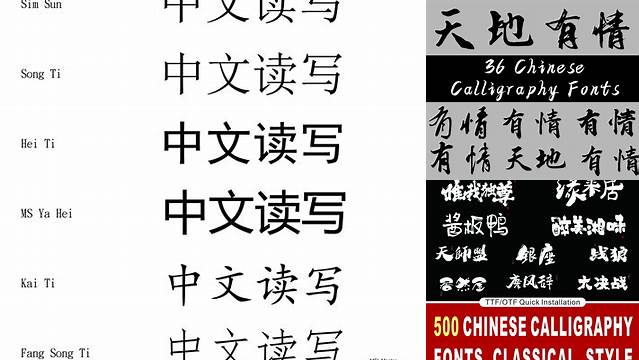
Use Chinese Calligraphy Fonts In Microsoft Word: A How-To Guide
Hey guys! Ever wanted to add a touch of elegance and tradition to your documents? Well, learning how to use Chinese calligraphy fonts in Microsoft Word is your ticket! This guide will walk you through everything you need to know, from finding the right fonts to actually using them in your projects. Whether you’re creating a beautiful invitation, a cultural presentation, or just want to experiment with different writing styles, we’ve got you covered. Let’s dive in and explore the art of Chinese calligraphy in the digital world! In this comprehensive guide, we'll explore the fascinating world of Chinese calligraphy fonts within Microsoft Word. You'll learn how to access, install, and effectively utilize these fonts to create stunning documents that reflect the beauty and artistry of Chinese writing. We'll cover a variety of topics, from understanding the different styles of calligraphy to troubleshooting common issues. So, grab your digital brush and let's embark on this creative journey together!
1. Understanding Chinese Calligraphy Styles
Before we jump into the technical stuff, let’s talk about the art itself. Chinese calligraphy isn’t just about writing characters; it’s about creating art. There are several main styles, each with its own unique flavor. Knowing these styles will help you choose the right font for your project. For example, Kaishu (楷书), or regular script, is formal and precise, making it great for official documents. On the other hand, Xingshu (行书), or running script, is more fluid and expressive, perfect for personal letters or creative pieces. And then there’s Caoshu (草书), or cursive script, which is super artistic but can be a bit tricky to read if you’re not familiar with it. Understanding these styles is the first step in mastering Chinese calligraphy in Word. Each style carries its own historical significance and aesthetic appeal. Familiarizing yourself with these nuances will not only enhance your understanding but also enable you to make informed choices when selecting fonts for your projects. Consider the message you wish to convey and the overall tone of your document when choosing between the formality of Kaishu, the fluidity of Xingshu, and the artistic flair of Caoshu. This thoughtful approach will elevate your work from simple text to a captivating visual experience.
4. Using Chinese Calligraphy Fonts in Word
Alright, you’ve got your fonts installed, now what? Open up Microsoft Word and start typing! To use your new fonts, simply select the text you want to change and choose the calligraphy font from the font dropdown menu. If you don’t see it right away, try typing the font name in the search bar. One thing to keep in mind is that Chinese characters can be a bit more complex than English letters, so you might need to adjust the font size and spacing to get the look you want. Experiment with different sizes and line heights to find the perfect balance. And don’t be afraid to play around with different fonts and styles to see what works best for your project. This is where the fun begins! Mastering the art of typesetting Chinese calligraphy in Word requires a bit of practice and attention to detail. Pay close attention to the spacing between characters and lines, as this can significantly impact readability and aesthetic appeal. Use Word's character spacing and line spacing tools to fine-tune the appearance of your text. Consider the overall layout of your document and how the calligraphy elements integrate with other design elements. A well-balanced and harmonious composition will enhance the impact of your message and showcase your artistic skills. Don't hesitate to experiment with different arrangements until you achieve the desired effect.
5. Common Issues and Troubleshooting
Sometimes things don’t go as planned, and that’s okay. One common issue is that some fonts might not display correctly in Word. This can happen if the font file is corrupted or if Word is having trouble recognizing the font. A quick fix is to restart Word or even your computer. If that doesn’t work, try reinstalling the font. Another issue is that some fonts might not support all Chinese characters. If you find that a character is missing, try using a different font or look for a font that specifically supports the characters you need. Don’t get discouraged! A little troubleshooting can go a long way. If problems persist, consult online forums and communities for help. Sharing your experiences and seeking guidance from others can often lead to swift resolutions. In addition, keeping your software up to date and regularly maintaining your system can help prevent many common issues from arising in the first place. A proactive approach to troubleshooting ensures a smoother and more enjoyable creative process.
6. Adjusting Font Size and Spacing
Font size and spacing are crucial elements in making your Chinese calligraphy look its best. Too small, and the characters might be hard to read; too large, and they might look overwhelming. The same goes for spacing. Too little spacing, and the characters will run together; too much, and they’ll look disconnected. Experiment with different sizes and spacing options until you find the sweet spot. Word offers a variety of tools to adjust these settings, so take advantage of them. Remember, the goal is to create a visually pleasing and readable piece of text. Don't be afraid to zoom in and examine your work closely to ensure that the spacing and size are just right. Consider the context in which your calligraphy will be viewed and adjust the settings accordingly. For example, if your document will be printed, you may need to use a larger font size than if it will be viewed on a screen. Attention to detail is key to achieving professional-looking results.
7. Using Calligraphy Fonts for Titles and Headings
Chinese calligraphy fonts can add a touch of sophistication and elegance to your titles and headings. Imagine a presentation with beautifully calligraphed titles or a report with a striking heading that grabs attention. When using calligraphy fonts for titles, choose fonts that are bold and clear. Xingshu and Kaishu styles often work well for this purpose. Play around with font size and color to make your titles stand out. But remember, consistency is key. Stick to one or two calligraphy fonts throughout your document to maintain a cohesive look. The impact of calligraphy lies in its visual appeal, making it a natural choice for titles and headings. However, it’s important to use it judiciously to avoid overwhelming the reader. Consider the overall design of your document and how the calligraphy elements complement the other elements. In some cases, a subtle touch of calligraphy may be more effective than a bold and elaborate display. Think of calligraphy as a visual accent that enhances the message, rather than the main focus of attention. This thoughtful approach will ensure that your titles and headings are both visually appealing and functional.
8. Creating Invitations with Chinese Calligraphy
Want to create invitations that truly impress? Chinese calligraphy can add a unique and elegant touch. For invitations, Xingshu and Caoshu fonts can bring a sense of artistry and sophistication. Consider using these fonts for names, dates, and special messages. Pair them with a simple, clean body text font for readability. Experiment with different layouts and color schemes to create a design that reflects the tone of your event. Whether it’s a wedding, a birthday, or a corporate gala, calligraphy can make your invitations unforgettable. The artistry of Chinese calligraphy lends itself beautifully to the creation of elegant and memorable invitations. Consider the theme and style of your event when selecting a font and designing the layout. For formal occasions, a classic Kaishu font may be appropriate, while for more casual events, a flowing Xingshu or Caoshu font can add a touch of whimsy. Use high-quality paper and printing techniques to enhance the visual appeal of your invitations. Pay attention to the spacing and alignment of the text to ensure readability and visual harmony. With a little creativity and attention to detail, you can create invitations that are both beautiful and impactful.
9. Designing Posters with Calligraphy Fonts
Posters are all about making a statement, and calligraphy fonts can help you do just that. Use bold and eye-catching calligraphy fonts for your poster’s main message. Think about the overall theme and choose a font that matches. For a traditional look, Kaishu is a great choice; for a more modern vibe, Xingshu or a stylized calligraphy font might be better. Play with colors and backgrounds to make your poster pop. Just make sure the text is still easy to read. A well-designed poster with calligraphy can be a true work of art. Posters are a powerful medium for visual communication, and calligraphy fonts can add a unique and impactful element to your designs. Consider the target audience and the message you wish to convey when selecting a font and creating the layout. Use contrasting colors and bold typography to capture attention and make your message stand out. Experiment with different arrangements of text and images to create a visually dynamic composition. Don't be afraid to break the rules and try something unconventional. The goal is to create a poster that is both visually appealing and effective in communicating your message.
10. Using Chinese Calligraphy in Presentations
Adding Chinese calligraphy to your presentations can make them more engaging and memorable. Use calligraphy fonts for your title slides, section headings, and key messages. This can add a touch of elegance and cultural flair to your slides. Just make sure your audience can read the text easily. Choose fonts that are clear and legible, and use font sizes that are large enough for everyone to see. A well-placed calligraphy element can elevate your presentation and leave a lasting impression. Presentations are an opportunity to engage your audience and convey information in a visually compelling way. Incorporating Chinese calligraphy can add a touch of sophistication and cultural richness to your slides. Use it sparingly and strategically to highlight key points and enhance the overall aesthetic appeal of your presentation. Consider using calligraphy for your title slide, section headings, and concluding remarks. This will create a visual framework that guides your audience through your presentation and reinforces your message. Be sure to use clear and legible fonts, and adjust the size and spacing as needed to ensure readability.
11. Calligraphy Fonts for Business Documents
For a professional yet artistic touch, consider using Chinese calligraphy fonts in your business documents. A subtle use of calligraphy can make your reports, proposals, and memos stand out. However, it’s important to maintain a balance between aesthetics and professionalism. Use formal styles like Kaishu for important headings or titles, and ensure the font is legible and not distracting. A tasteful incorporation of calligraphy can enhance your corporate image and showcase attention to detail. Business documents require a balance between professionalism and visual appeal. Chinese calligraphy can be a subtle yet effective way to add a touch of elegance and sophistication to your reports, proposals, and letters. Use it sparingly and thoughtfully, focusing on key elements such as headings, titles, and logos. Choose fonts that are clear and legible, and avoid overly stylized or ornate scripts that may be difficult to read. Consider the overall tone and style of your document and select a font that complements the message you wish to convey. A well-placed calligraphy element can elevate your business communication and leave a lasting impression.
12. Calligraphy Fonts in Resumes and Cover Letters
In a competitive job market, a unique resume can make you stand out. Using Chinese calligraphy fonts sparingly can add a distinctive flair to your resume and cover letter. Consider using it for your name or section headings to grab the recruiter's attention. However, legibility is paramount. Choose a clear, formal style and ensure the font size is appropriate. A subtle hint of calligraphy can showcase your creativity and attention to detail. Resumes and cover letters are your first opportunity to make a strong impression on potential employers. While content is paramount, the visual presentation of your application can also play a significant role in capturing attention. Using Chinese calligraphy fonts judiciously can add a touch of uniqueness and sophistication to your resume and cover letter. However, it's crucial to prioritize clarity and legibility. Choose a font that is easy to read and avoid using it excessively. Consider using calligraphy for your name, section headings, or a brief personal statement. A subtle hint of calligraphy can demonstrate your creativity and attention to detail while maintaining a professional tone.
13. Chinese Calligraphy for Greeting Cards
Personalize your greeting cards with the beauty of Chinese calligraphy. Whether it's for a birthday, holiday, or special occasion, calligraphy can add a heartfelt touch. Use elegant fonts like Xingshu for a personal message or Kaishu for a more formal greeting. Pair it with a beautiful image or design to create a memorable card. Calligraphy transforms a simple greeting into a work of art. Greeting cards are a wonderful way to express your sentiments and connect with loved ones. Chinese calligraphy can elevate your greeting cards from ordinary to extraordinary, adding a touch of elegance and personalization. Consider the occasion and your relationship with the recipient when selecting a font and crafting your message. Use Xingshu or Caoshu for a warm and heartfelt message, or opt for Kaishu for a more formal greeting. Incorporate traditional Chinese motifs or images to enhance the cultural authenticity of your card. With a little creativity and effort, you can create greeting cards that are both beautiful and meaningful.
14. Creating Art with Calligraphy Fonts
Unleash your inner artist by creating digital art with Chinese calligraphy fonts. Experiment with different fonts, sizes, and colors to produce unique designs. Use calligraphy for quotes, poems, or personal expressions. You can even combine calligraphy with other graphic elements to create stunning visuals. Let your imagination run wild and create art that reflects your style and personality. Calligraphy is not just a writing system; it's an art form in itself. Digital tools have made it easier than ever to explore the artistic potential of Chinese calligraphy fonts. Use your creativity and imagination to combine different fonts, colors, and sizes to create unique and captivating designs. Incorporate calligraphy into your digital artwork, posters, or social media graphics. Experiment with layering, transparency, and special effects to add depth and dimension to your creations. Let your passion for calligraphy shine through your artwork and inspire others with its beauty.
15. Mixing Chinese and English Fonts
Combining Chinese calligraphy with English fonts can create a visually striking effect. This is a great way to add an international flair to your documents. When mixing fonts, it’s important to choose fonts that complement each other. A classic English serif font paired with a formal Chinese calligraphy style like Kaishu can look elegant, while a modern sans-serif font might work well with a more fluid style like Xingshu. Experiment to find combinations that work for your project. The fusion of Chinese calligraphy and English typography can create visually compelling designs that bridge cultures and styles. However, it's crucial to approach this mixing process with care and consideration. Select fonts that harmonize with each other in terms of weight, style, and overall aesthetic. Avoid using too many different fonts in a single document, as this can create a cluttered and confusing visual experience. Pay attention to the spacing and alignment of the text to ensure readability and visual balance. When done well, the combination of Chinese and English fonts can add a unique and sophisticated touch to your designs.
16. Understanding Calligraphy Font Licensing
When using fonts, especially for commercial projects, it’s important to understand licensing. Most free fonts come with specific terms of use, and some may only be free for personal use. Commercial use usually requires a license. Check the font’s licensing agreement before using it in your projects to avoid copyright issues. Understanding font licensing is crucial for respecting intellectual property rights and avoiding potential legal complications. Whether you're using free or paid fonts, it's essential to review the licensing agreement carefully before incorporating them into your projects. Pay attention to restrictions on commercial use, modification, and distribution. If you're unsure about the terms of a license, it's always best to err on the side of caution and seek clarification from the font designer or distributor. Proper font licensing ensures that you're using fonts legally and ethically, protecting both yourself and the creators of these valuable design resources.
17. The History of Chinese Calligraphy
To truly appreciate Chinese calligraphy, it’s helpful to understand its history. Calligraphy is more than just writing; it’s an ancient art form with a rich heritage. It dates back thousands of years and has evolved through various dynasties, each contributing its unique style and influence. Learning about the history of calligraphy can give you a deeper connection to the art and inspire your own work. Exploring the history of Chinese calligraphy is like embarking on a journey through centuries of artistic expression and cultural evolution. From its ancient origins as a practical writing system to its elevation as a revered art form, calligraphy has played a central role in Chinese culture and society. Delving into the history of calligraphy not only enhances your appreciation for its beauty and complexity but also provides valuable insights into Chinese history, philosophy, and aesthetics. By understanding the historical context of different calligraphic styles and techniques, you can better appreciate the artistry and cultural significance of this timeless art form.
18. Practicing Digital Calligraphy Techniques
Even though you’re using digital fonts, you can still practice calligraphy techniques. Experiment with different brush settings in drawing programs or use a stylus on a tablet to mimic traditional brushstrokes. Understanding the basics of calligraphy, like stroke order and pressure, can help you make the most of your digital fonts. Practice makes perfect, so dedicate some time to honing your digital calligraphy skills. While using digital calligraphy fonts may seem different from traditional brush-and-ink calligraphy, there are still many techniques you can practice to improve your digital artistry. Experiment with different brush settings in drawing programs or use a stylus and tablet to mimic the feel of traditional brushstrokes. Focus on mastering fundamental calligraphic principles, such as stroke order, pressure control, and line variation. Consider taking online courses or workshops to deepen your understanding of calligraphy techniques. Regular practice and experimentation will help you develop your digital calligraphy skills and create stunning works of art.
19. Calligraphy for Social Media Graphics
Stand out on social media by incorporating Chinese calligraphy into your graphics. A well-placed calligraphy quote or title can make your posts more visually appealing and engaging. Use calligraphy fonts for your headers, captions, and even watermarks. Just remember to keep your designs clean and readable, as social media visuals are often viewed on small screens. The dynamic world of social media provides ample opportunities to showcase your creativity and connect with your audience. Incorporating Chinese calligraphy into your social media graphics can add a touch of elegance, cultural richness, and visual intrigue to your posts. Use calligraphy for quotes, captions, and watermarks to make your content stand out from the crowd. Consider using calligraphy for special announcements, promotions, or seasonal greetings. However, it's important to prioritize clarity and readability, especially on small screens. Choose fonts that are easy to read and use appropriate font sizes and spacing. A well-designed social media graphic with calligraphy can capture attention, convey your message effectively, and enhance your brand identity.
20. Calligraphy and Branding
For businesses looking to convey a sense of tradition, elegance, or cultural connection, Chinese calligraphy can be a powerful branding tool. Incorporate calligraphy into your logo, website design, and marketing materials. It can help you create a unique and memorable brand identity. Just make sure the calligraphy aligns with your brand’s overall message and values. In the competitive world of business, a strong brand identity is crucial for standing out from the crowd and connecting with your target audience. Chinese calligraphy can be a powerful tool for businesses looking to convey a sense of tradition, elegance, cultural heritage, or artistic flair. Incorporating calligraphy into your logo, website design, marketing materials, and product packaging can create a unique and memorable brand presence. However, it's essential to ensure that the calligraphy aligns with your brand's overall message, values, and target market. Consider working with a professional calligrapher or designer to create a custom calligraphy element that reflects your brand identity and resonates with your audience. A well-executed calligraphy-based brand identity can communicate your brand story, evoke emotions, and leave a lasting impression on your customers.
21. Calligraphy Fonts for Book Covers
If you’re designing a book cover, Chinese calligraphy fonts can add a touch of intrigue and sophistication, especially for genres like historical fiction or cultural studies. Use calligraphy for the title or author’s name to grab the reader’s attention. Just make sure the font is legible and matches the book’s theme. A captivating book cover is essential for attracting readers and conveying the essence of your story. Chinese calligraphy fonts can be a valuable asset in book cover design, particularly for genres such as historical fiction, cultural studies, poetry, and literary fiction. Using calligraphy for the title, author's name, or a brief tagline can create a sense of mystery, elegance, and cultural richness. Choose fonts that align with the book's theme, tone, and target audience. Pay attention to legibility, as the font must be easily readable even at small sizes. Consider the overall design of the cover and how the calligraphy elements interact with other visual elements. A well-designed book cover with calligraphy can capture the reader's imagination, convey the book's message, and encourage them to delve into the world you've created.
22. Creating Monograms with Chinese Calligraphy
Monograms are a classic way to personalize items, and using Chinese calligraphy can make them even more special. Combine calligraphy characters to create a unique monogram for yourself, your business, or as a gift. These can be used on stationery, logos, or even personal accessories. A calligraphy monogram is a stylish and personal touch. Monograms are timeless symbols of individuality and sophistication. Creating monograms with Chinese calligraphy adds a unique cultural and artistic dimension to this traditional practice. Combine calligraphy characters that represent your initials, name, or a meaningful word or phrase. Use a calligraphy font that reflects your personal style and aesthetic preferences. Consider the purpose of the monogram and the medium on which it will be displayed. Calligraphy monograms can be used on stationery, logos, business cards, personal accessories, and even home decor items. A well-designed calligraphy monogram is a subtle yet impactful way to express your personality and create a lasting impression.
23. Chinese Calligraphy in Web Design
Incorporate Chinese calligraphy into your website to add a unique cultural touch. Use it for headings, logos, or decorative elements. Just be mindful of website loading times, as calligraphy fonts can sometimes be larger files. Optimize your images and fonts to ensure a smooth user experience. The digital landscape offers vast opportunities to showcase your creativity and cultural appreciation. Integrating Chinese calligraphy into your web design can add a unique and captivating element to your website. Use calligraphy for headings, logos, decorative elements, or even short excerpts of text. However, it's crucial to balance aesthetics with functionality. Calligraphy fonts can sometimes be larger files, which can impact website loading times. Optimize your images and fonts to ensure a smooth user experience. Consider using CSS techniques to create dynamic and responsive calligraphy elements that adapt to different screen sizes and devices. A well-designed website with calligraphy can attract visitors, convey your message effectively, and leave a lasting impression.
24. Calligraphy and Interior Design
Bring the elegance of Chinese calligraphy into your home with wall art, scrolls, or decorative pieces. Calligraphy can add a sophisticated and cultural touch to any room. Choose pieces that complement your existing décor and reflect your personal style. A calligraphy wall hanging can be a beautiful focal point in your space. Interior design is an art form that allows you to express your personality, create a comfortable living environment, and showcase your appreciation for beauty and culture. Incorporating Chinese calligraphy into your interior design can add a touch of elegance, sophistication, and cultural richness to your home. Consider using calligraphy wall art, scrolls, decorative pieces, or even furniture with calligraphy details. Choose pieces that complement your existing décor, reflect your personal style, and resonate with your values. A well-placed calligraphy element can transform a room, create a focal point, and inspire conversation. Embrace the beauty and tranquility of Chinese calligraphy to elevate your living space.
25. Calligraphy for Tattoos
For a meaningful and unique tattoo, consider using Chinese calligraphy. A single character or a short phrase can carry a deep message. Work with a skilled tattoo artist who is experienced in calligraphy to ensure the design is accurate and beautiful. Research the meaning of the characters carefully to avoid any misunderstandings. Tattoos are a personal form of self-expression and artistic statement. Using Chinese calligraphy for tattoos adds a unique cultural and symbolic dimension to this ancient art form. A single character or a short phrase can carry a profound message, representing your values, beliefs, or aspirations. However, it's crucial to approach calligraphy tattoos with care and respect. Work with a skilled tattoo artist who has experience with calligraphy to ensure the design is accurate, aesthetically pleasing, and culturally sensitive. Research the meaning of the characters carefully to avoid any misunderstandings or misinterpretations. A well-executed calligraphy tattoo is a beautiful and meaningful way to express your individuality and cultural appreciation.
26. Learning Chinese Calligraphy Basics
If you’re really interested in calligraphy, consider learning the basics of traditional brush calligraphy. This will give you a deeper understanding of the art form and improve your digital calligraphy skills. There are many online courses, workshops, and books available to help you get started. Learning the fundamentals will enhance your appreciation for the art. To truly appreciate the art of Chinese calligraphy and elevate your digital skills, consider delving into the basics of traditional brush calligraphy. This foundational knowledge will provide you with a deeper understanding of the principles, techniques, and nuances of this ancient art form. Learning the correct stroke order, brush handling, and character construction will enhance your understanding of digital calligraphy fonts and enable you to use them more effectively. Explore online courses, workshops, books, and resources to guide you on your calligraphic journey. Embrace the challenges and rewards of mastering traditional calligraphy techniques to enrich your artistic expression.
27. The Emotional Impact of Calligraphy
Chinese calligraphy is not just about writing; it’s about conveying emotions and feelings. The flow of the brushstrokes, the pressure applied, and the overall composition all contribute to the emotional impact of the piece. When choosing a calligraphy font, think about the emotions you want to evoke. Calligraphy has the power to move people. Chinese calligraphy transcends the mere act of writing; it's a profound art form that conveys emotions, feelings, and cultural nuances. The flow of the brushstrokes, the pressure applied, the ink density, and the overall composition work in harmony to create a visual language that resonates with the viewer. When choosing a calligraphy font for your project, consider the emotions you want to evoke and the message you wish to convey. Select a font that aligns with your intentions and amplifies the emotional impact of your work. Calligraphy has the power to touch hearts, inspire minds, and leave a lasting impression.
28. Calligraphy and Poetry
Calligraphy and poetry have a long and beautiful relationship in Chinese culture. Many famous calligraphers have also been poets, and their calligraphic works often feature their own poems or classic verses. Pairing calligraphy with poetry can create a powerful and meaningful piece of art. The synergy between calligraphy and poetry elevates the artistic expression and enhances the emotional resonance. Calligraphy and poetry have enjoyed a long and cherished relationship in Chinese culture, intertwining to create works of art that captivate the senses and stir the soul. Many renowned calligraphers were also accomplished poets, seamlessly blending their mastery of the brush with their poetic sensibilities. Calligraphic works often feature the calligrapher's own poems or classic verses from literary masters. Pairing calligraphy with poetry creates a powerful synergy that enhances the meaning, emotional depth, and aesthetic appeal of the piece. Explore the world of calligraphy and poetry to unlock new dimensions of artistic expression and cultural appreciation.
29. Resources for Learning More About Chinese Calligraphy
Want to delve deeper into Chinese calligraphy? There are tons of resources available, from online courses and tutorials to books and workshops. Websites like Coursera and Udemy offer calligraphy courses, while libraries and bookstores have a wealth of books on the subject. Don’t forget to check out local calligraphy groups or workshops in your area. The journey of learning about Chinese calligraphy is a lifelong pursuit filled with discovery and artistic growth. Fortunately, there are numerous resources available to guide and inspire you on your path. Explore online courses and tutorials on platforms like Coursera and Udemy to learn from experienced calligraphers and deepen your understanding of techniques and styles. Visit libraries and bookstores to discover a wealth of books on the history, theory, and practice of Chinese calligraphy. Join local calligraphy groups or workshops to connect with fellow enthusiasts, share your work, and learn from each other. Embrace the abundance of resources and immerse yourself in the rich world of Chinese calligraphy.
30. Future Trends in Chinese Calligraphy Fonts
As technology evolves, so will the world of Chinese calligraphy fonts. Expect to see more innovative and dynamic fonts that push the boundaries of traditional calligraphy. AI and machine learning may even play a role in creating new fonts. The future is bright for Chinese calligraphy in the digital age! As technology continues to advance at an unprecedented pace, the world of Chinese calligraphy fonts is poised for exciting transformations. We can anticipate the emergence of more innovative and dynamic fonts that blend traditional aesthetics with cutting-edge digital techniques. Artificial intelligence (AI) and machine learning may play a significant role in the creation of new fonts, enabling designers to generate unique and expressive calligraphic styles. Virtual reality (VR) and augmented reality (AR) may offer immersive experiences for learning and practicing calligraphy. The future is bright for Chinese calligraphy, and we can expect to see its timeless beauty and artistic spirit flourish in the digital realm.
So there you have it! Using Chinese calligraphy fonts in Microsoft Word is not only possible but also a fun and rewarding way to add a unique touch to your documents. Whether you’re creating invitations, presentations, or just want to experiment with a new writing style, these tips and tricks will help you get started. Happy writing, guys! We hope this comprehensive guide has equipped you with the knowledge and inspiration to embark on your journey of using Chinese calligraphy fonts in Microsoft Word. Remember, calligraphy is more than just writing; it's an art form that embodies cultural heritage and artistic expression. Embrace the beauty, elegance, and depth of Chinese calligraphy to elevate your creative projects and connect with the rich tapestry of Chinese culture. Happy creating!